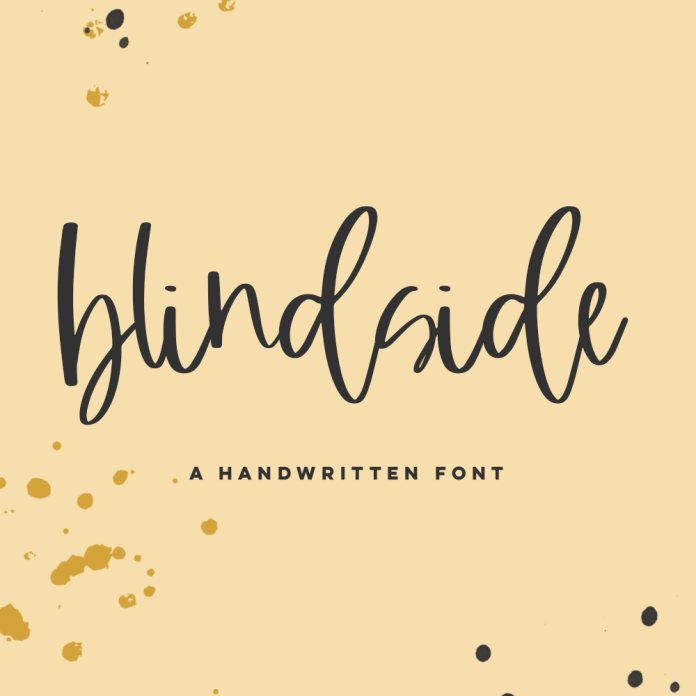
Blindside Cursive Font
Meet Blindside a handwritten script font. Blindside is bouncy & irregular, giving it an edgy, modern look. Blindside is best for: - logos + branding requiring an edgy, moody aesthetic - quote graphics for social media - website design + website accents requiring a legible handwritten touch - clean print design, like magazines + flyers - labels & product packaging Blindside includes: - upper and lowercase characters - numbers + punctuation - 9 ligatures - ar, er, ir, ll, om, on, oo, ss, ur - Western European Language Support - PUA-encoding